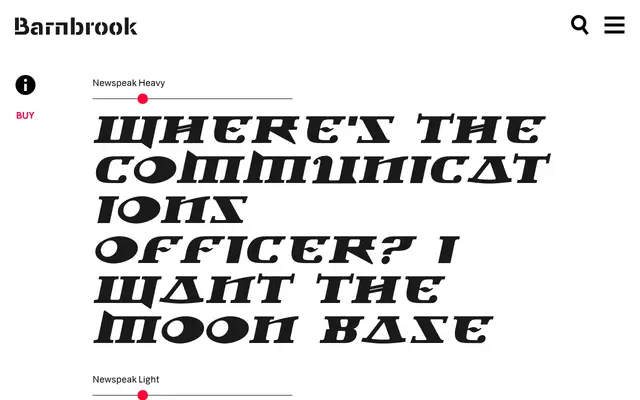
Newspeak
Barnbrook · Jonathan Barnbrook
A display typeface built from the architectural vocabulary of Stalinist Russia, carrying a deliberate political charge rooted in Orwellian ideas about language and power.
Drawing on the monumental forms of Soviet architecture and the visual logic of Cyrillic letterforms, this typeface weaponises a strange, decadent beauty to evoke totalitarian control. Named after the fictional language of George Orwell's Nineteen Eighty-Four, it frames typography as a vehicle for political ideology, where the shape of letters can constrain or manipulate thought. Its release was accompanied by a poster featuring Tony Blair, connecting the typeface's themes to New Labour's media management and the rhetorical sleight of hand that presents neoliberalism as social democracy.
A display typeface drawing on Stalinist architectural forms and Cyrillic letterform references, making it firmly a display face with strong vernacular and political character rather than a text or body type category.